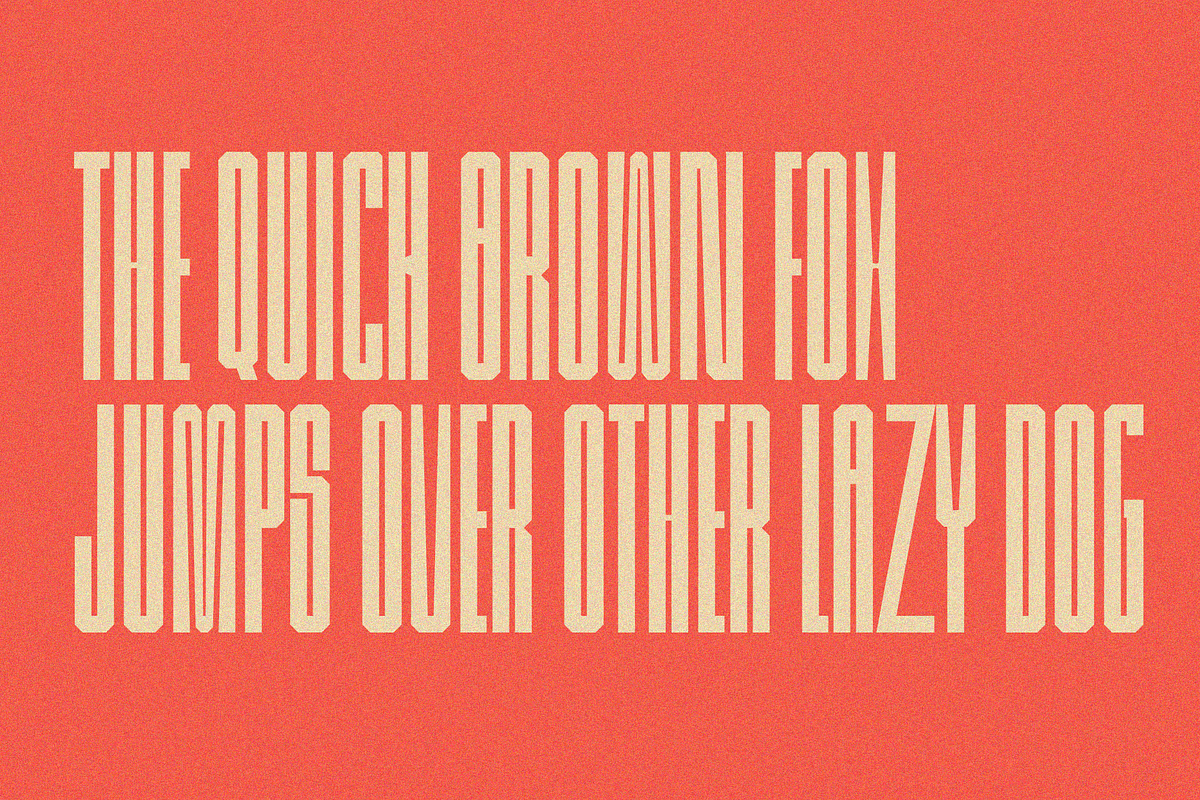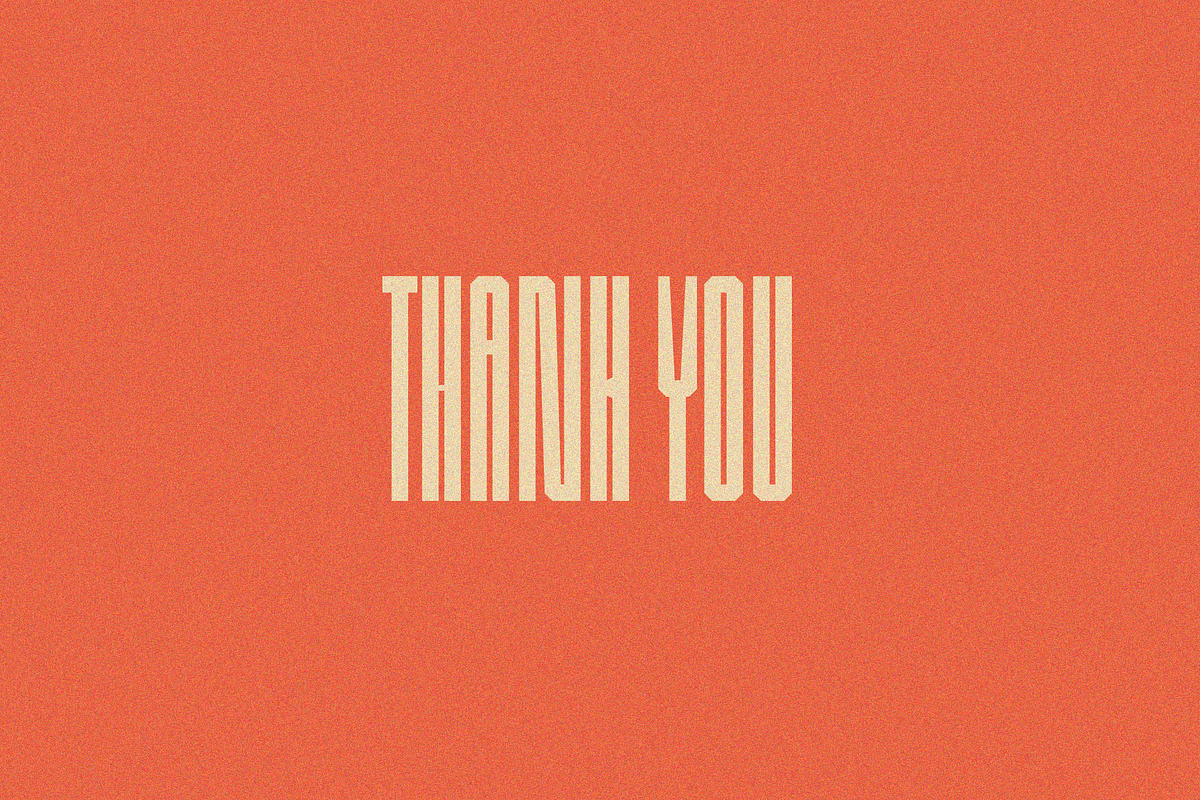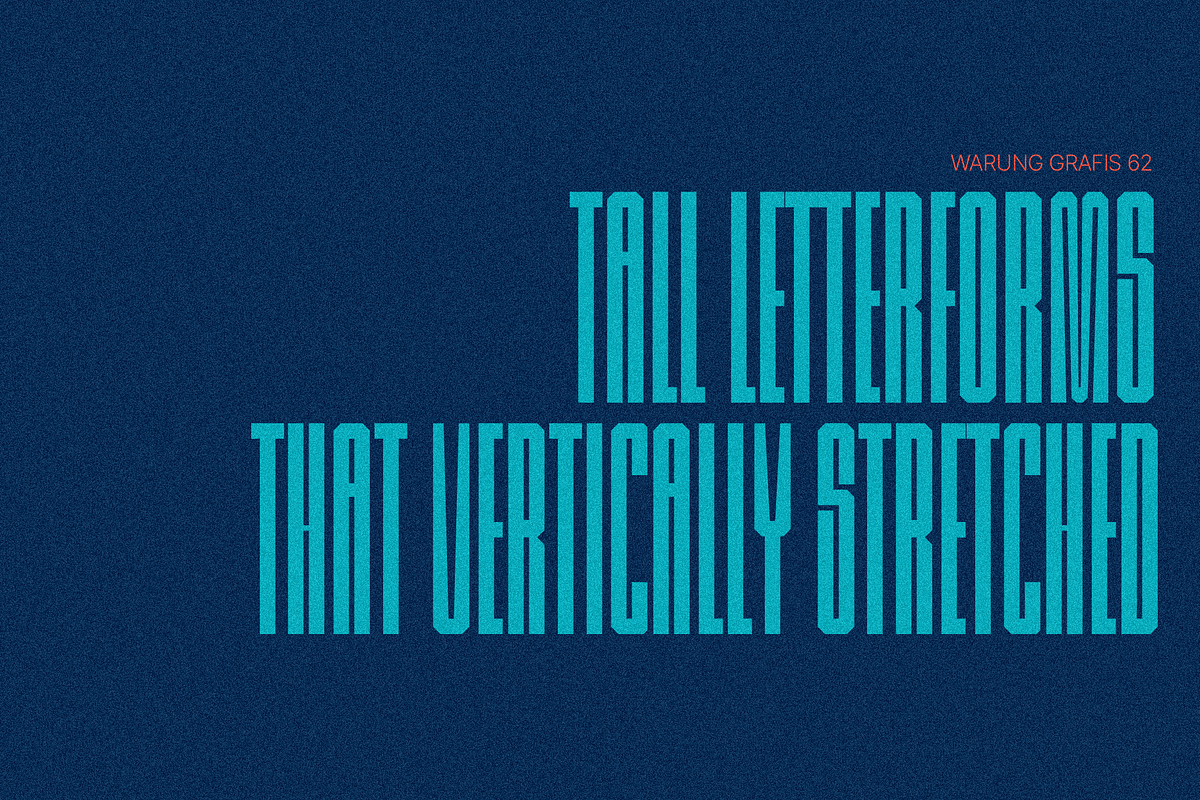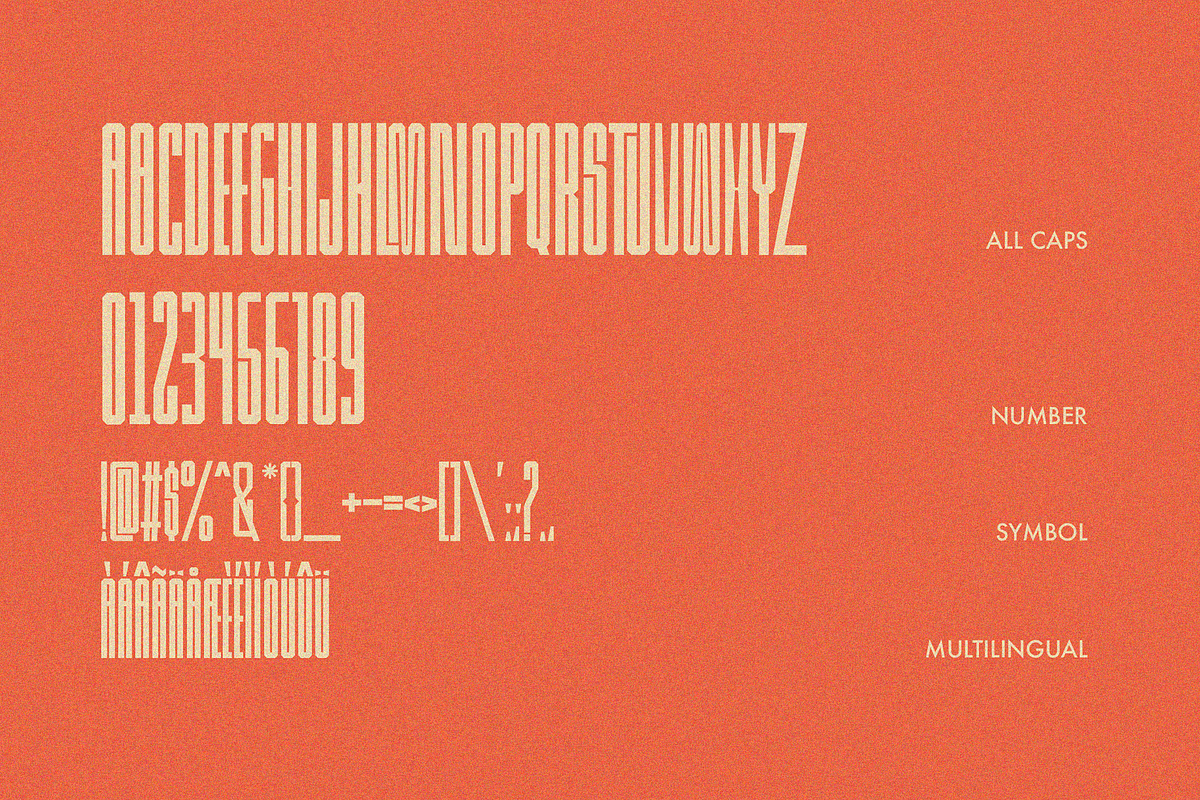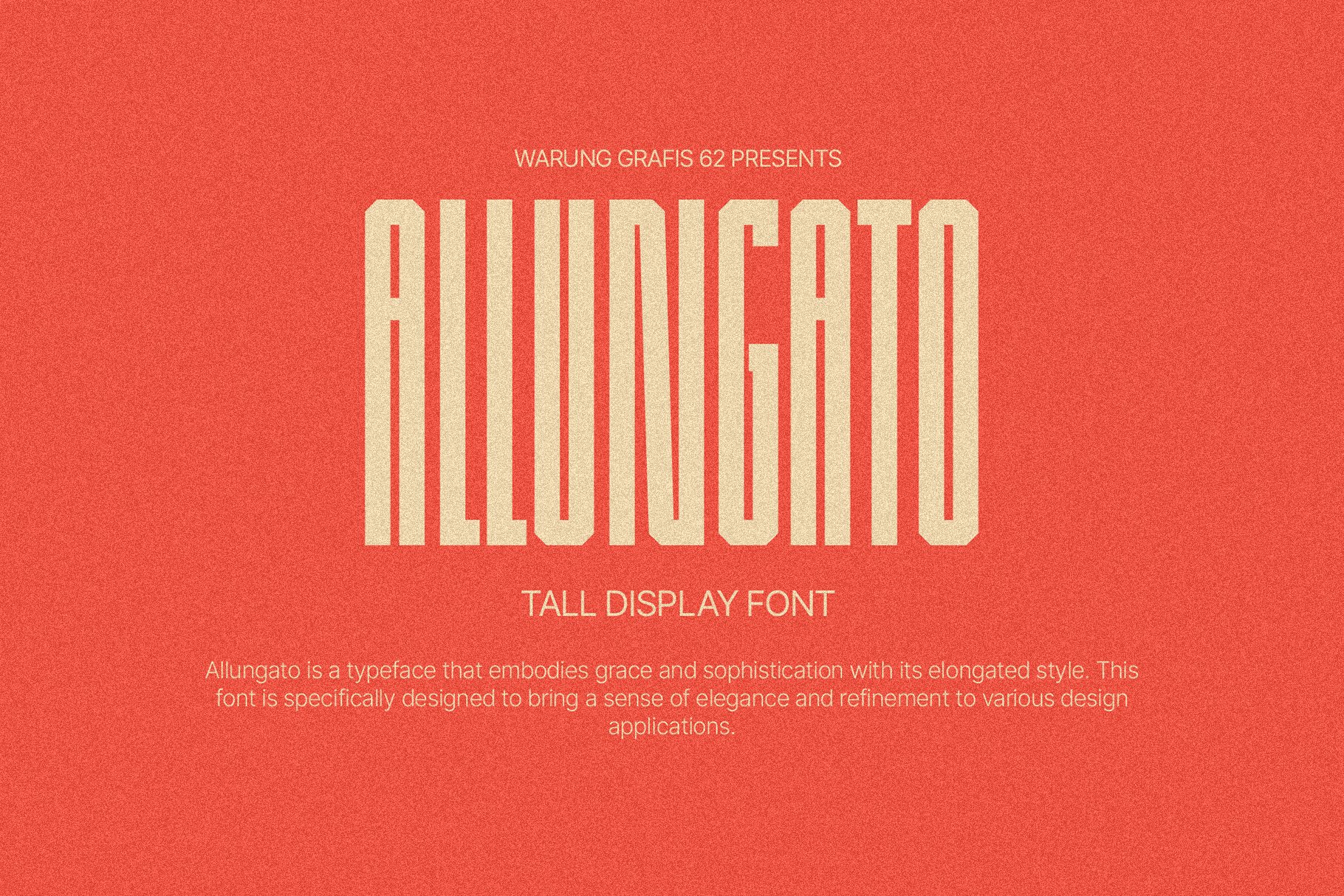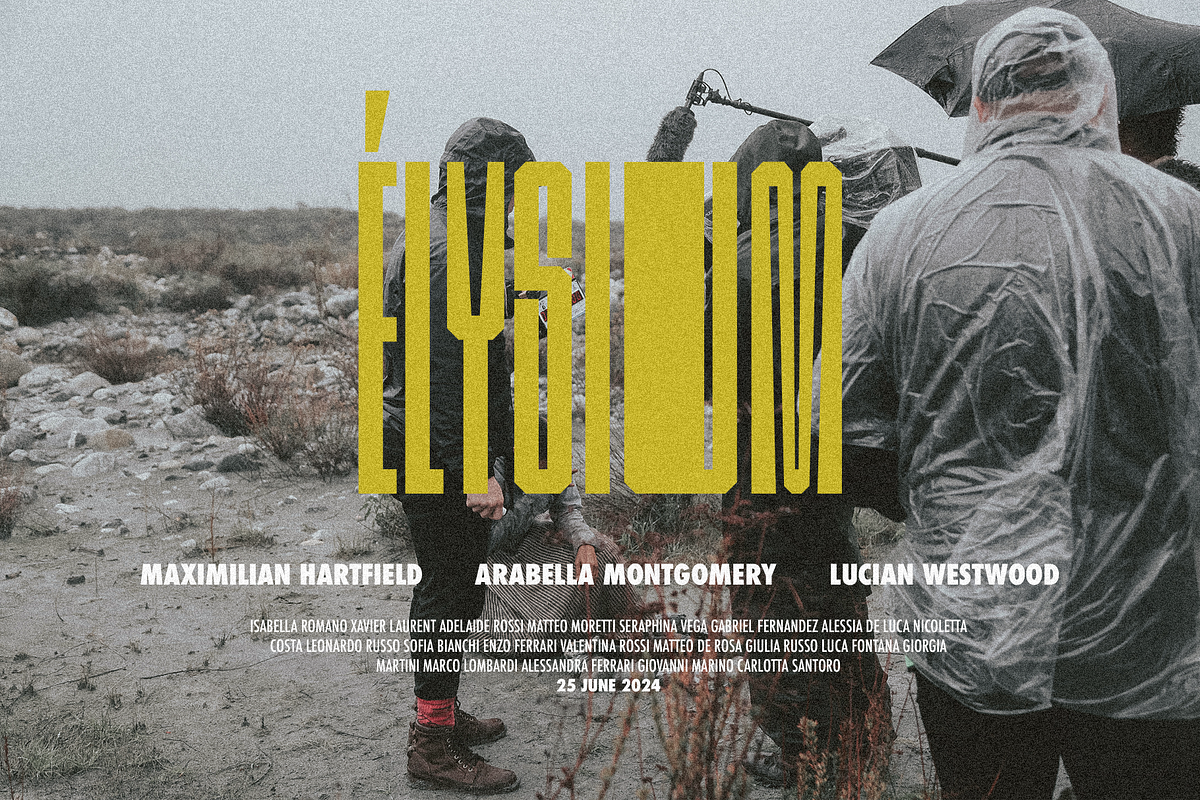
Allungato - Tall Display Font
Allungato is a sleek and versatile font that embodies elegance and sophistication. With its elongated letterforms, this typeface exudes a sense of grace and refinement. It is perfect for projects that require a touch of sophistication, such as high-end branding, luxury packaging, or editorial designs.
The Allungato font family also offers a range of alternative characters, providing designers with even more creative possibilities. These alternates add variation and uniqueness to your typography, allowing you to customize your designs and create a truly distinctive visual identity.
Whether you're aiming for a modern and sleek look or a classic and timeless aesthetic, Allungato is a reliable choice. Its versatility and alternative characters give you the freedom to explore different design directions and make a lasting impression. Elevate your projects with the allure of Allungato and let its refined charm captivate your audience.
- Tall and Elegant Letterforms: A complete set of uppercase and lowercase characters with elongated and graceful letterforms, exuding a sense of elegance and sophistication.
- Numerals and Punctuation: Complete your designs with precision using the included numerical digits, punctuation marks, and symbols for seamless integration.
- Stylistic Alternatives: Explore different variations and stylistic options to add versatility and uniqueness to your typography. Experiment with alternate letterforms and create custom looks for your designs.
- Ligatures: Enhance the visual flow and aesthetics of your text with specially designed ligatures that create seamless connections between certain letter combinations.
- OpenType Features: Take advantage of the advanced typographic features offered by Allungato font, including swashes, contextual alternates, and more, to add flair and character to your designs.
Allungato font is a perfect choice for projects that require an elegant and sophisticated touch. Its tall letterforms and stylistic options give you the flexibility to create stunning designs for various purposes, such as logos, headlines, invitations, and more. Unleash your creativity with Allungato font and elevate your typography to new heights.